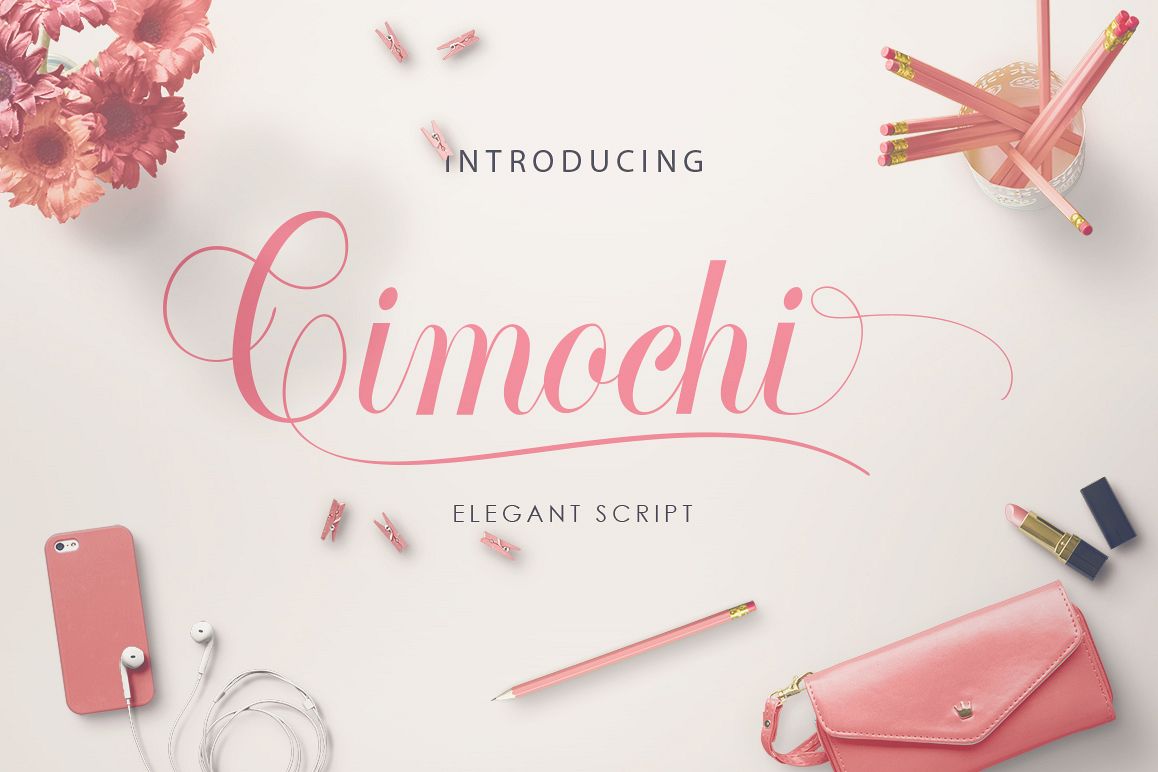
Cimochi
cimochi.
Cimochi, a lovely great typeface with 9 carefully curved alternates form for each letter. It's made to deliver your good feeling into a letter. cimochi formed by smooth line, classic and elegant touch. Can be used for various purposes, such as headings, signature, logos, wedding invitation, t-shirt, letterhead, signage, label, news, posters, badges etc.